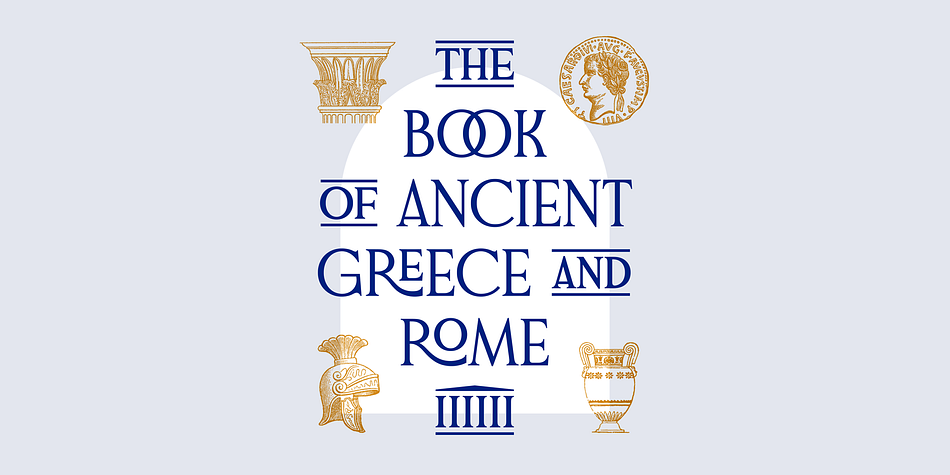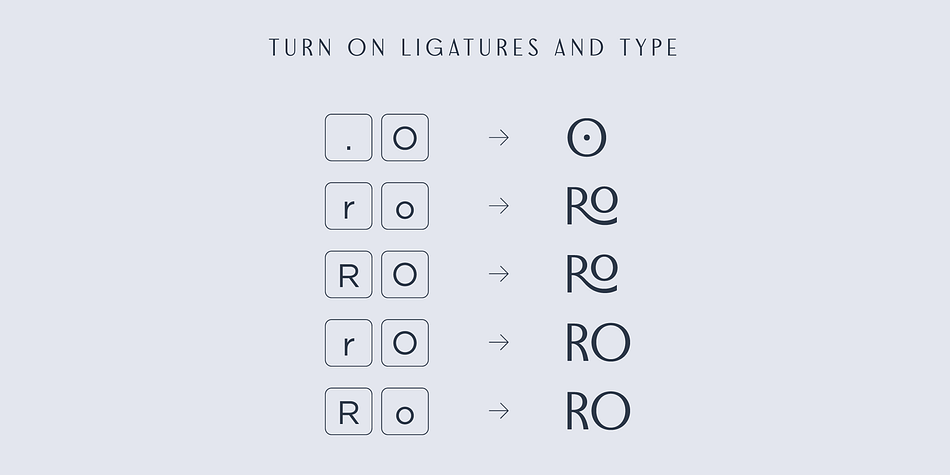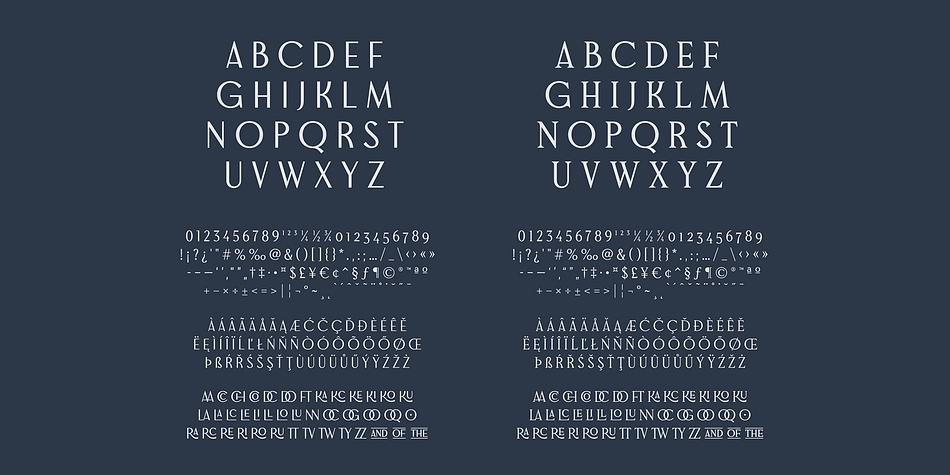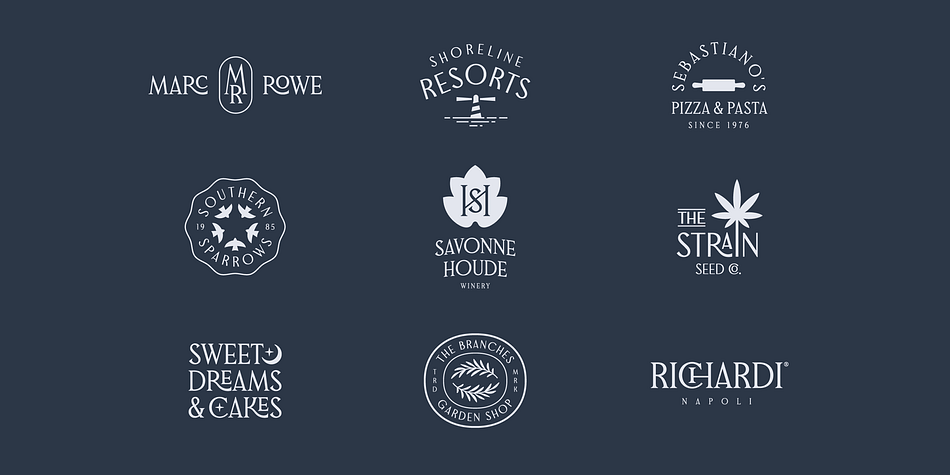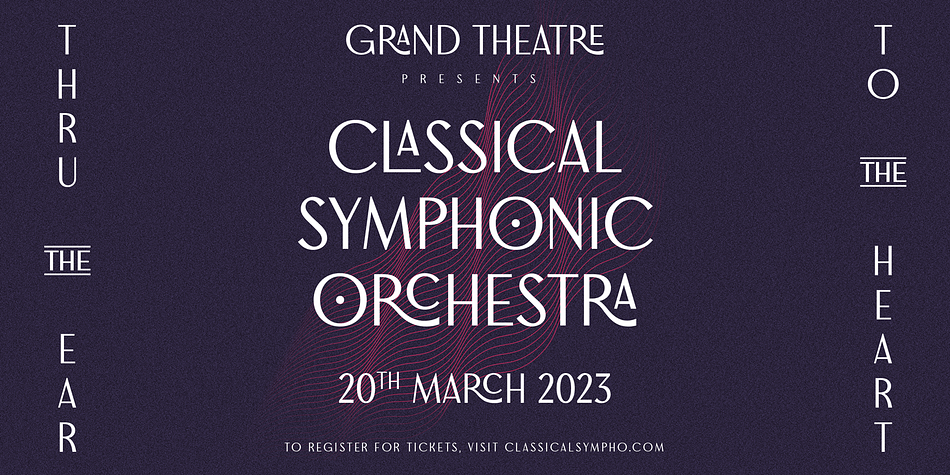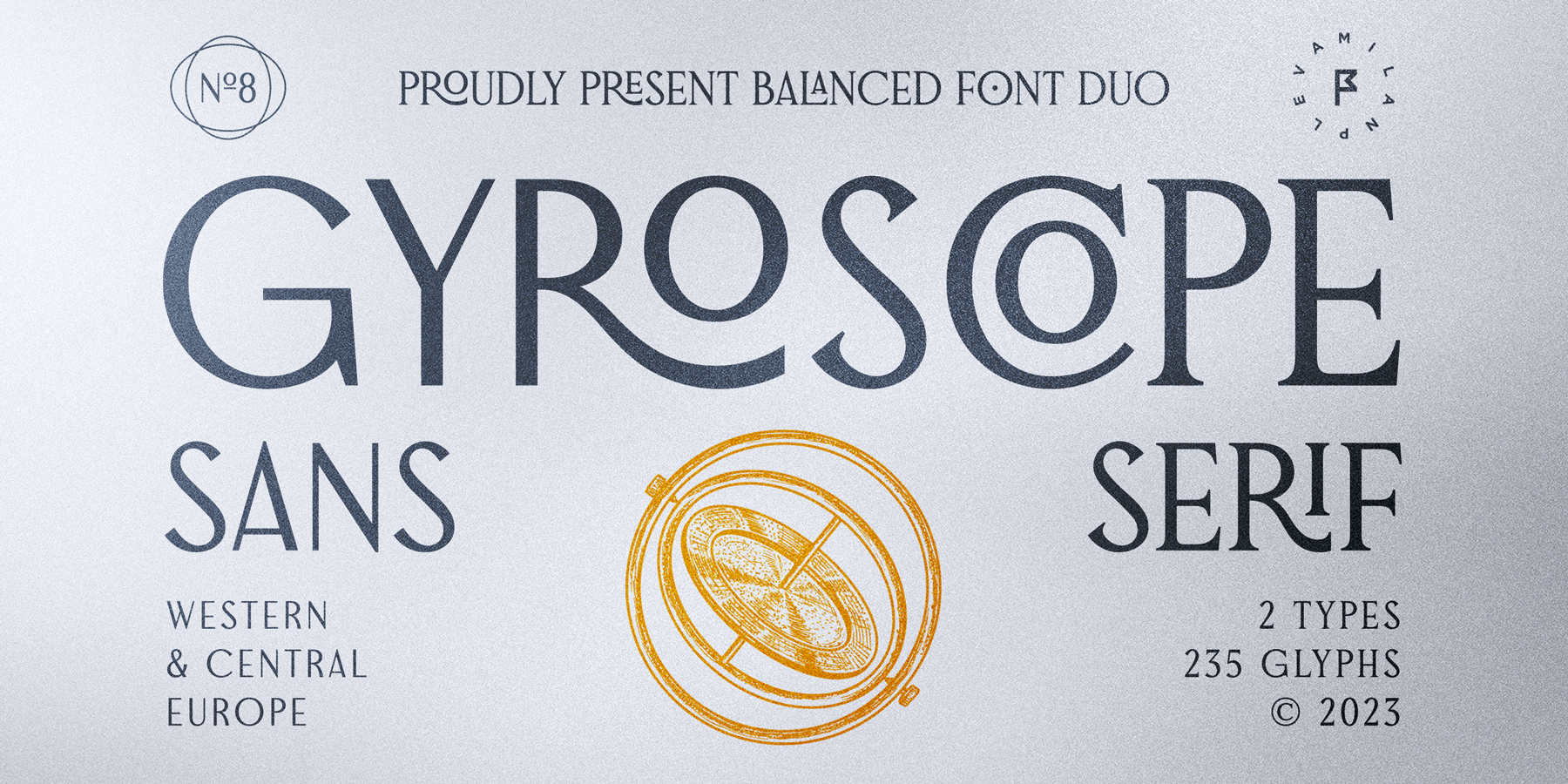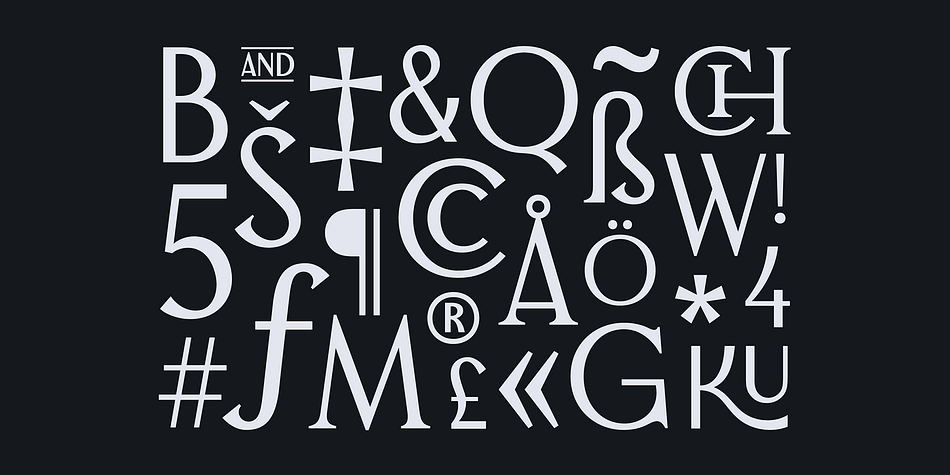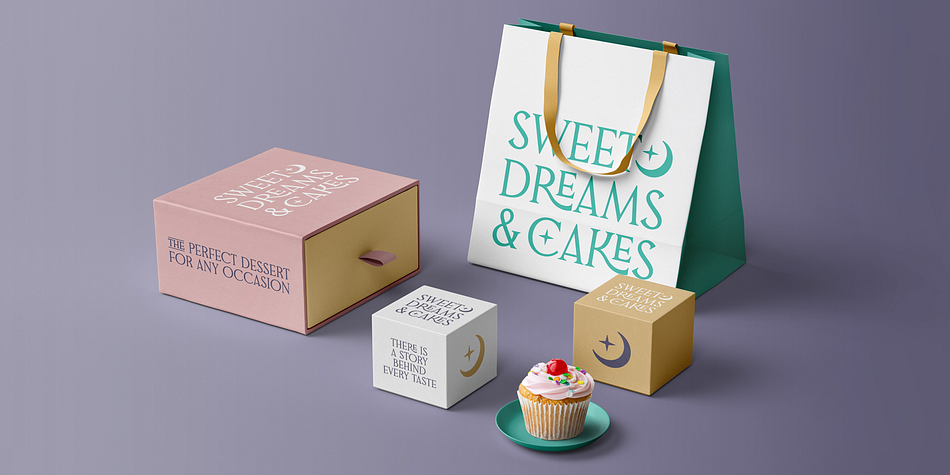
GYROSCOPE
Gyroscope is an art deco, display sans and display serif font family. This typeface has two styles and was published by Milan Pleva.
Gyroscope is an all caps display font duo consisting of two styles - Serif and Sans Serif. Both of them can also be bought separately. Gyroscope has elegant and well balanced curves of letters perfect for logos, headlines, magazines, or even longer texts. There are selected ligatures you can use for a better look.
FEATURES
2 Styles: Gyroscope Sans & Gyroscope Serif
Basic latin alphabet A-Z
43 Ligatures & Alternates
56 Accented characters
Numbers, Punctuation, Currency, Symbols, Math symbols & Diacritics
Old style figures
Case sensitive glyph
Foundry Milan Pleva
Styles Art Deco, Display Sans, Display Serif